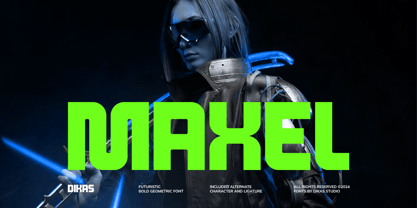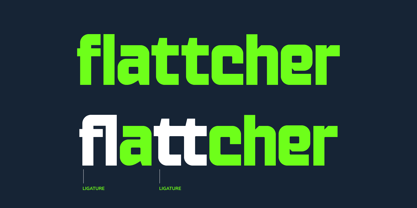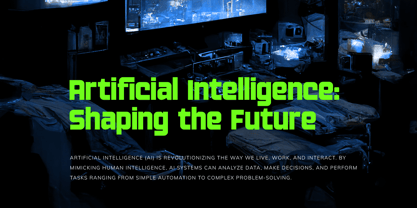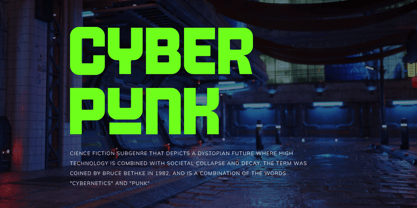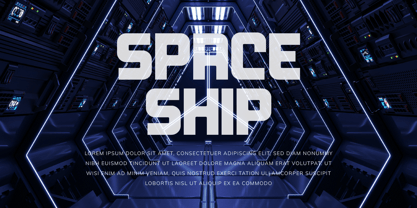
Maxel
von Dikas Studio
Die Schriftfamilie Maxel wurde von Andika Setiawan entworfen und von Dikas Studio veröffentlicht. Maxel enthält 1 Stile.
Maxel is a bold sans-serif font with a sleek, futuristic style that makes it perfect for modern and cutting-edge designs. Whether you’re creating for space themes, techno aesthetics, gaming projects, or crafting standout branding and logos, Maxel delivers a powerful and contemporary look. Its strong, versatile character is ready to elevate your creative vision.
Designer: Andika Setiawan
Herausgeber: Dikas Studio
Foundry: Dikas Studio
Eigentümer des Designs: Dikas Studio